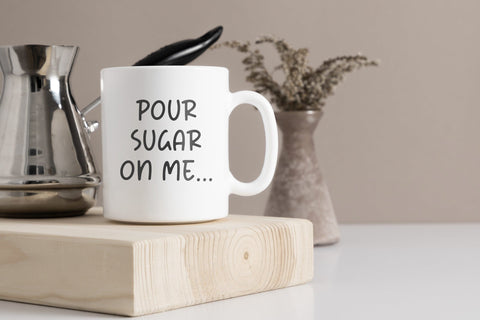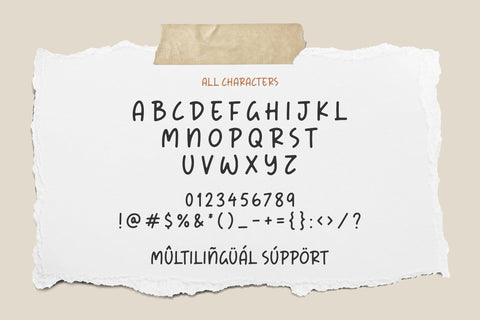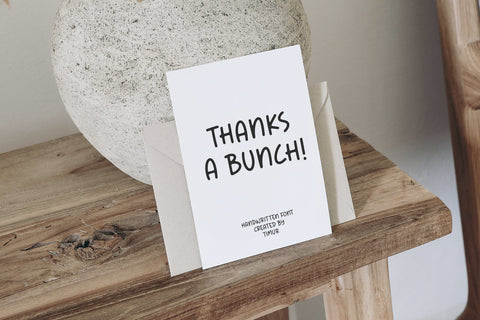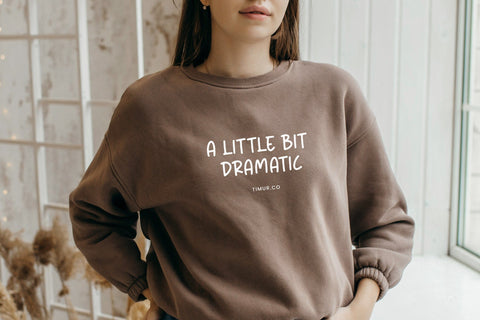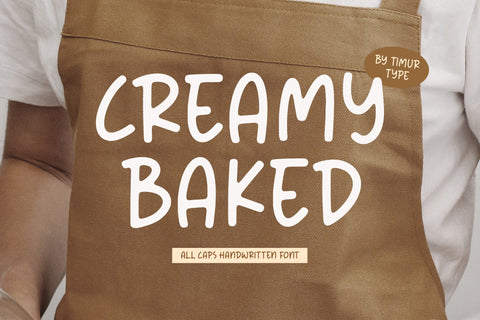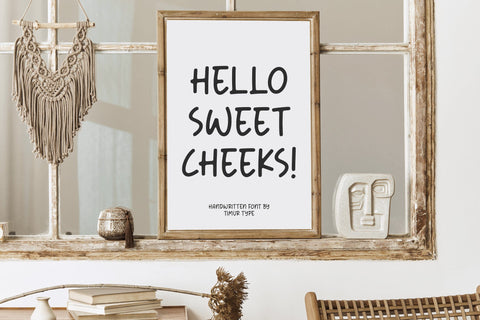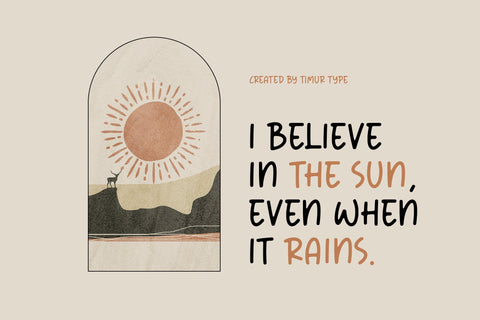
Creamy Baked - Handwritten font
Introducing by Timur type
Proudly Present, Creamy Baked Handwritten font
Creamy Baked font is a Handwritten Font, which was created with great care and specially created for you .
Creamy Baked font is best for:
- logos, branding, & Signatures.
- Flyers, Album cover, Magazine, & Advertisements.
- Website design , design blogs, & fashion.
- Quote graphics for social media.
- and also it works great for other projects.